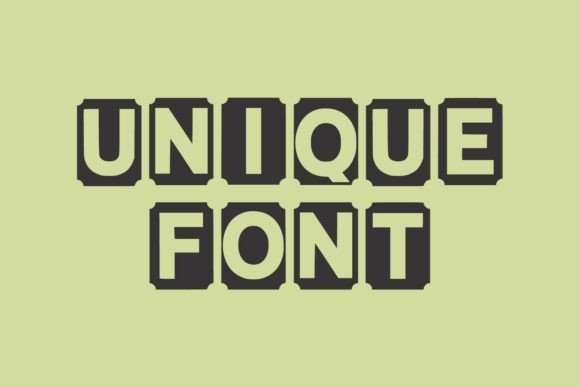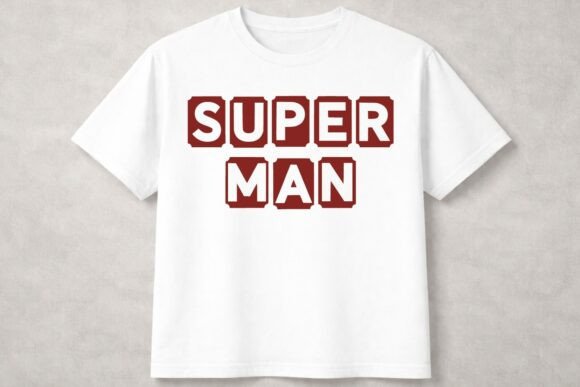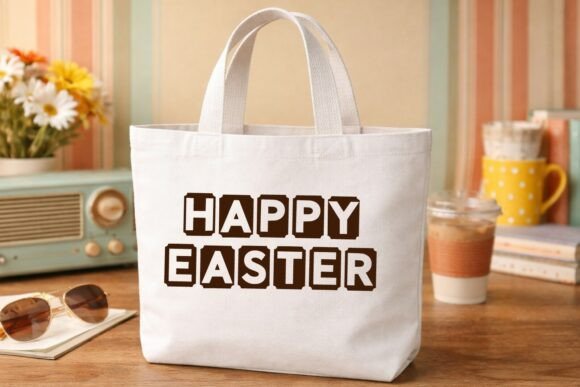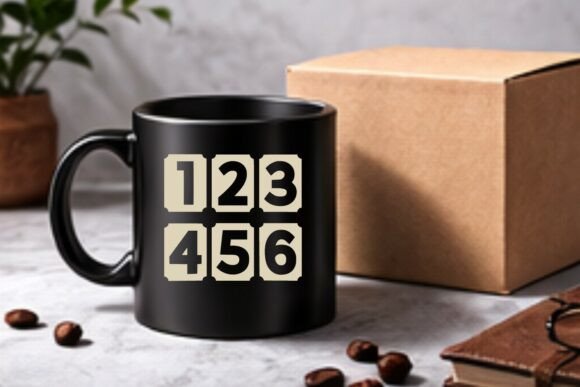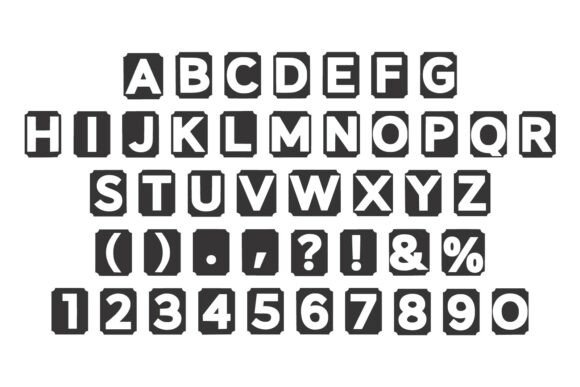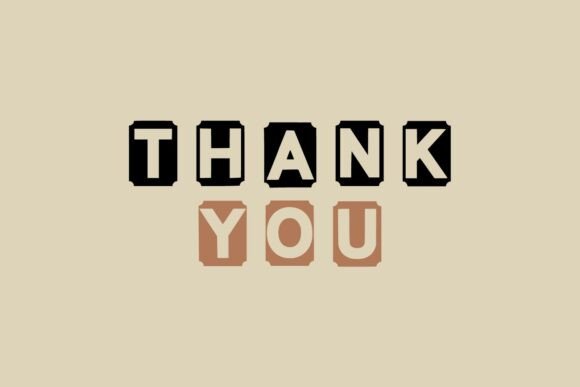
Unlock the Power of Box Letter Font
You’re brainstorming a new design concept and suddenly, a spark of creativity hits you. You envision a bold, eye-catching layout that screams attention. You start to imagine the perfect font – one that’s playful, geometric, and instantly recognizable. Enter Box Letter Font, a unique decorative display typeface that’s sure to turn heads. This font takes inspiration from vintage tickets, industrial stamps, and modular signage, transforming every word into a rhythmic pattern of shapes.
With Box Letter Font, designers can add a touch of structured playfulness to their layouts. Its containment allows for incredible color experimentation, making it perfect for bold packaging, streetwear labels, and creative social media headers. This versatile font is an instant focal point, blending nostalgia and modernity in a single stroke.
Key Features of Box Letter Font
- Font Family: Box Letter is a display font, available in various styles such as Regular, Bold, and Italic.
- Unique Characteristics: Box Letter Font features a distinctive, geometric design with a bold and modern aesthetic, making it ideal for use in headings, titles, and other display typography.
Designer Review: Box Letter Font
Box Letter Font has a unique charm to it. The bold lines and geometric shapes ✨ create a clean, modern aesthetic that can add an edgy touch to any design. Its versatility makes it suitable for various projects, from digital displays to printed materials.
- ✨ Its geometric shapes and clean lines make it a great choice for modern and minimalist designs.
- ✨ Box Letter Font’s bold lines create a striking visual impact, perfect for headings and titles.
- ✨ It supports a wide range of languages, making it a great option for international designs.
However, there are some limitations to consider ⚠️:
- ⚠️ The font may appear too bold or overwhelming for delicate or intricate designs.
- ⚠️ The lack of subtle nuances in the font’s design may make it difficult to convey complex emotions or ideas.
Overall, Box Letter Font is a great choice for designers looking to add a modern and edgy touch to their projects. While it may not be suitable for every design, its unique charm and versatility make it a valuable addition to any design arsenal.
Tips for Getting the Most Out of Box Letter Font
Use Box Letter Font for titles, headings, and emphasis in your designs. It’s particularly effective in creating a vintage or retro feel. Experiment with different font sizes and colors to add visual interest.
Box Letter Font is commonly used in:
- Vintage-inspired designs
- Retro-style logos and branding
- Illustrations and graphics
Alternatives to Box Letter Font
Stencil Font
Stencil Font is a bold and geometric font that resembles a stencil or a marker. It is often used for headings, titles, and logos. It is similar to Box Letter Font in its bold and geometric nature, but it has a more precise and detailed look. Stencil Font is ideal for designs that require a strong and modern feel.
Typewriter Font
Typewriter Font is a classic and nostalgic font that mimics the look of old typewriters. It is often used for headings, titles, and body text. It is similar to Box Letter Font in its blocky and rectangular shape, but it has a more vintage and retro feel. Typewriter Font is ideal for designs that require a classic and timeless look.
Block Letter Font
Block Letter Font is a bold and simple font that consists of solid rectangular blocks. It is often used for headings, titles, and logos. It is similar to Box Letter Font in its blocky and rectangular shape, but it has a more minimalist and clean look. Block Letter Font is ideal for designs that require a bold and simple feel.